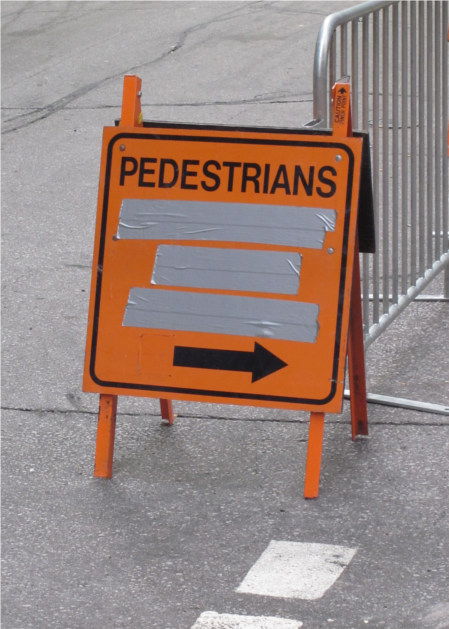
Pedestrians
I suspect that the blocked words are “please use other sidewalk,” but then again I don’t know for sure. I’d have to tear off the duct tape to find out.
This sign makes me think of hostages with their mouths taped shut. Even if the suppressed words are banal, there’s a menacing mood here.
But I guess there’s another way to see it: the double lines of tape are actually blanks, waiting for someone to fill them in with alternate instructions.
What would you write?
Sign reads, budget cuts.